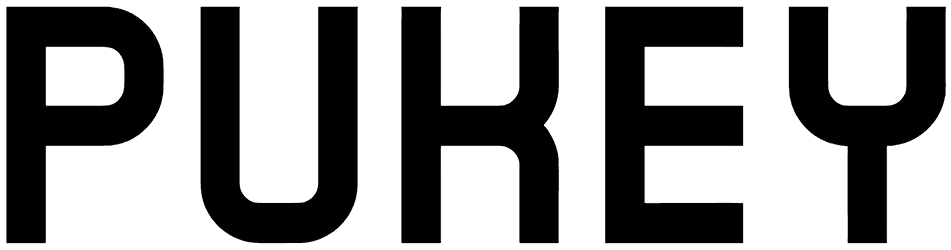
Pukey Font
With a unique sans-serif font, you can add a modern and distinct visual to your design. The Pukey font doesn’t cover lowercase letters and most punctuation marks, yet it can be a nice item for different projects, like a carwash billboard. Use this automotive font with its bold style and create a strong and humble design to capture a lot of visitors.